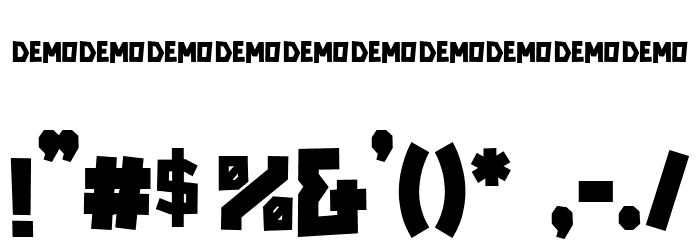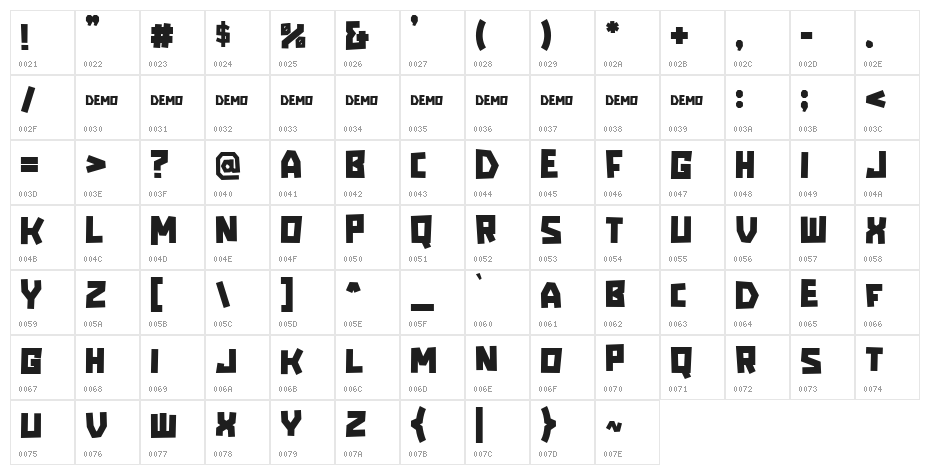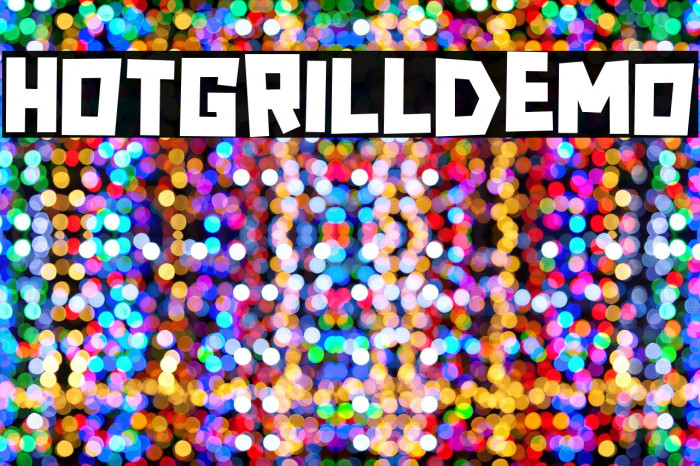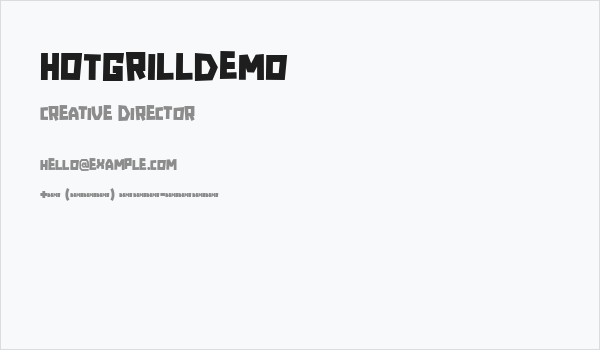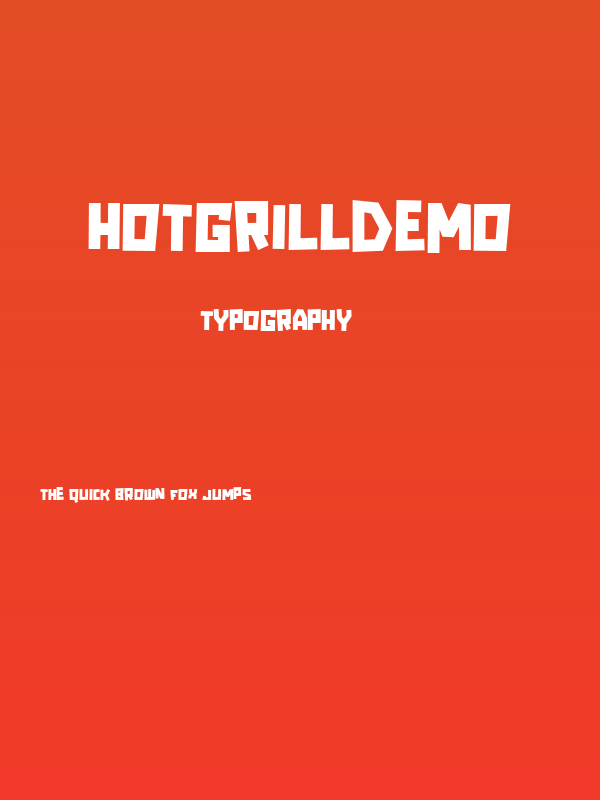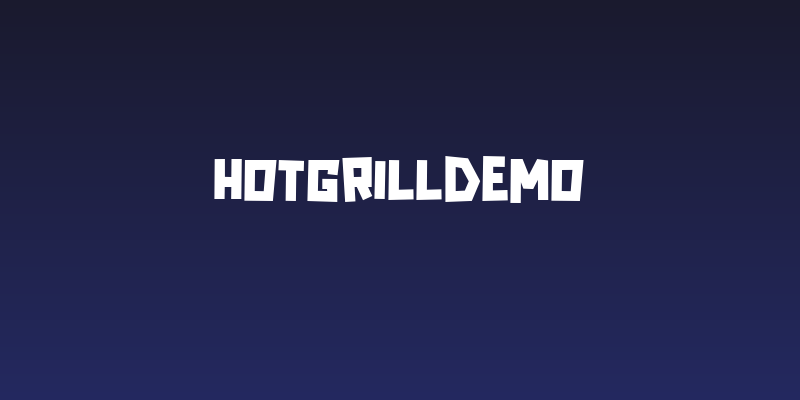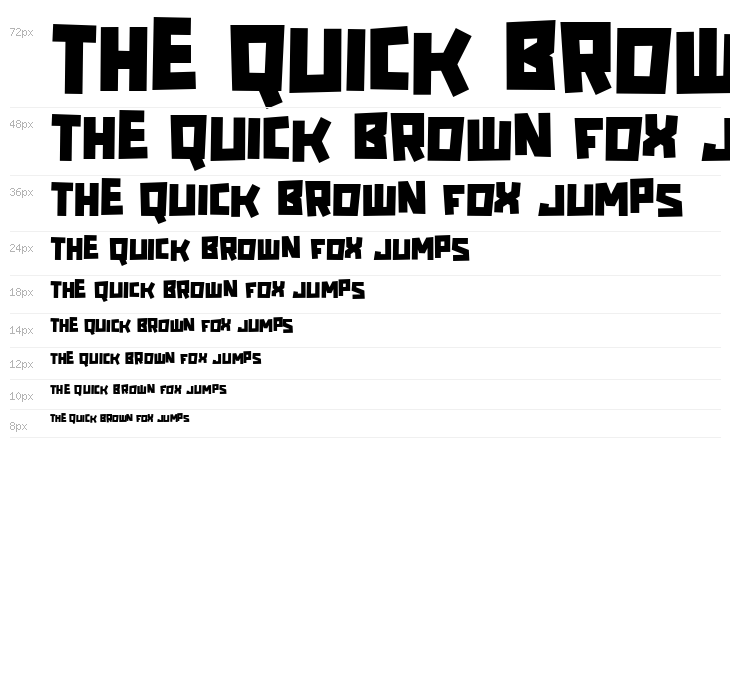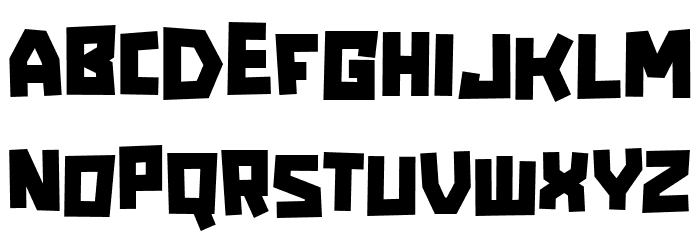
HOTGRILLdemo Font
HOTGRILLdemo Description
This font features a bold and edgy design with angular, geometric shapes that create a strong visual impact. The uppercase letters are particularly striking, with sharp edges and a blocky appearance that conveys a sense of strength and modernity. The lowercase letters maintain this boldness, ensuring consistency across the typeface. Numbers and special characters are equally robust, making them suitable for attention-grabbing headlines or logos. The font's unique style is both contemporary and slightly rebellious, making it ideal for projects that require a bold statement.
| Proposed Projects | Ideal for branding, posters, album covers, and any design needing a strong, modern impact. |